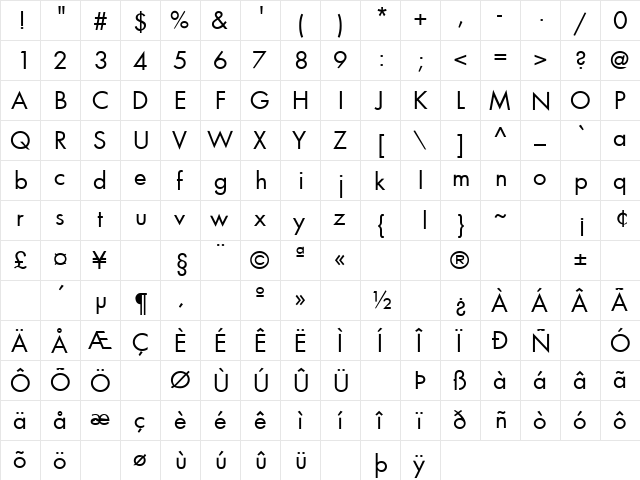
Loving 15 Regular
Design Context for Loving 15 Typeface
Loving 15 is a composed and adaptable typeface that performs quietly and consistently across a wide range of design contexts.